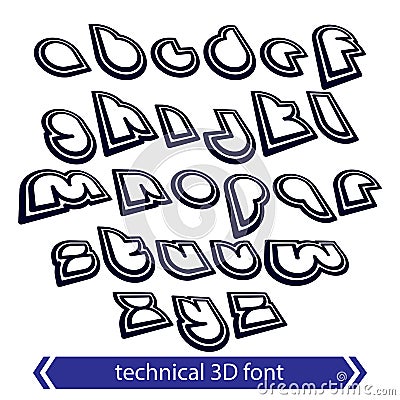
Typescript Retro Style, Technical 3D Font, Contemporary Shift Sm Cartoon Vector
Typescript retro style, technical 3D font, contemporary shift small letters.